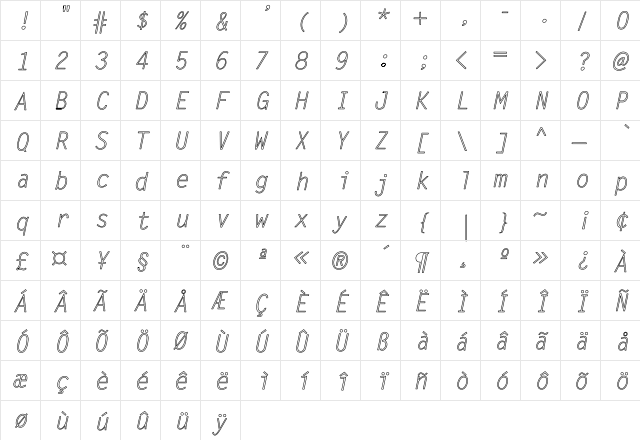
LetterGothic-Italic Hollow Regular
Design Context for LetterGothic-Italic Hollow Typeface
LetterGothic-Italic Hollow takes a clean, functional approach — its unadorned letterforms prioritise legibility and work reliably across screen and print environments. Its italic angle brings a sense of urgency and motion to the letterforms.
Font Pairing: Works well alongside a characterful serif or display font that can carry the expressive load while LetterGothic-Italic Hollow handles the functional copy.
Pro Tip: Pair LetterGothic-Italic Hollow with a display or serif font for headlines — its neutral character makes it an excellent supporting player in complex typographic systems.